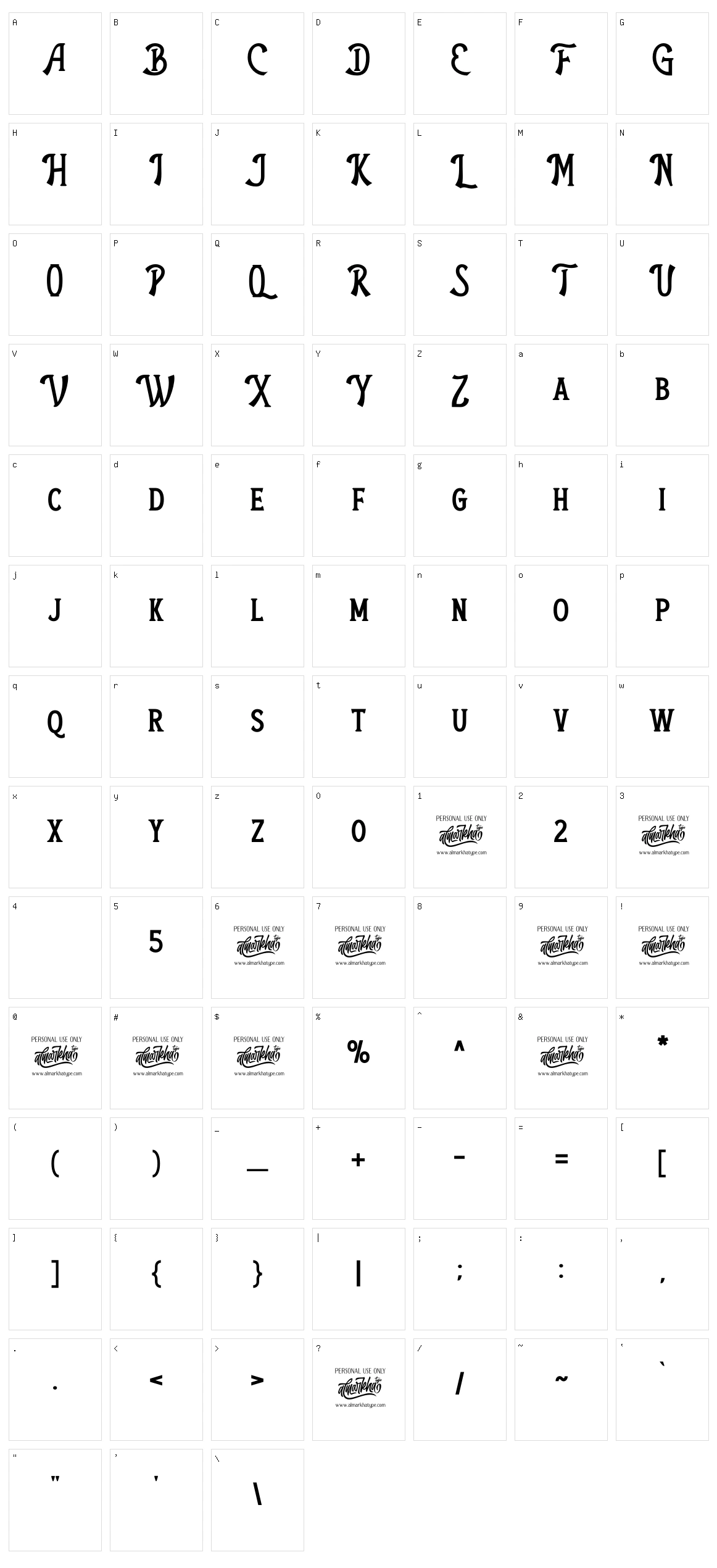
The free font The Antique is carefully designed by Almarkhatype, showcasing a thoughtful balance of creativity and usability and falls under the Retro font style. When you download the ZIP file, it contains only 720.94 KB of font files, making it lightweight and quick to download. Please review the license details below to understand permitted usage and distribution rights. If license information is not available, we recommend using this font for personal projects only or contacting the author directly for commercial usage permissions.